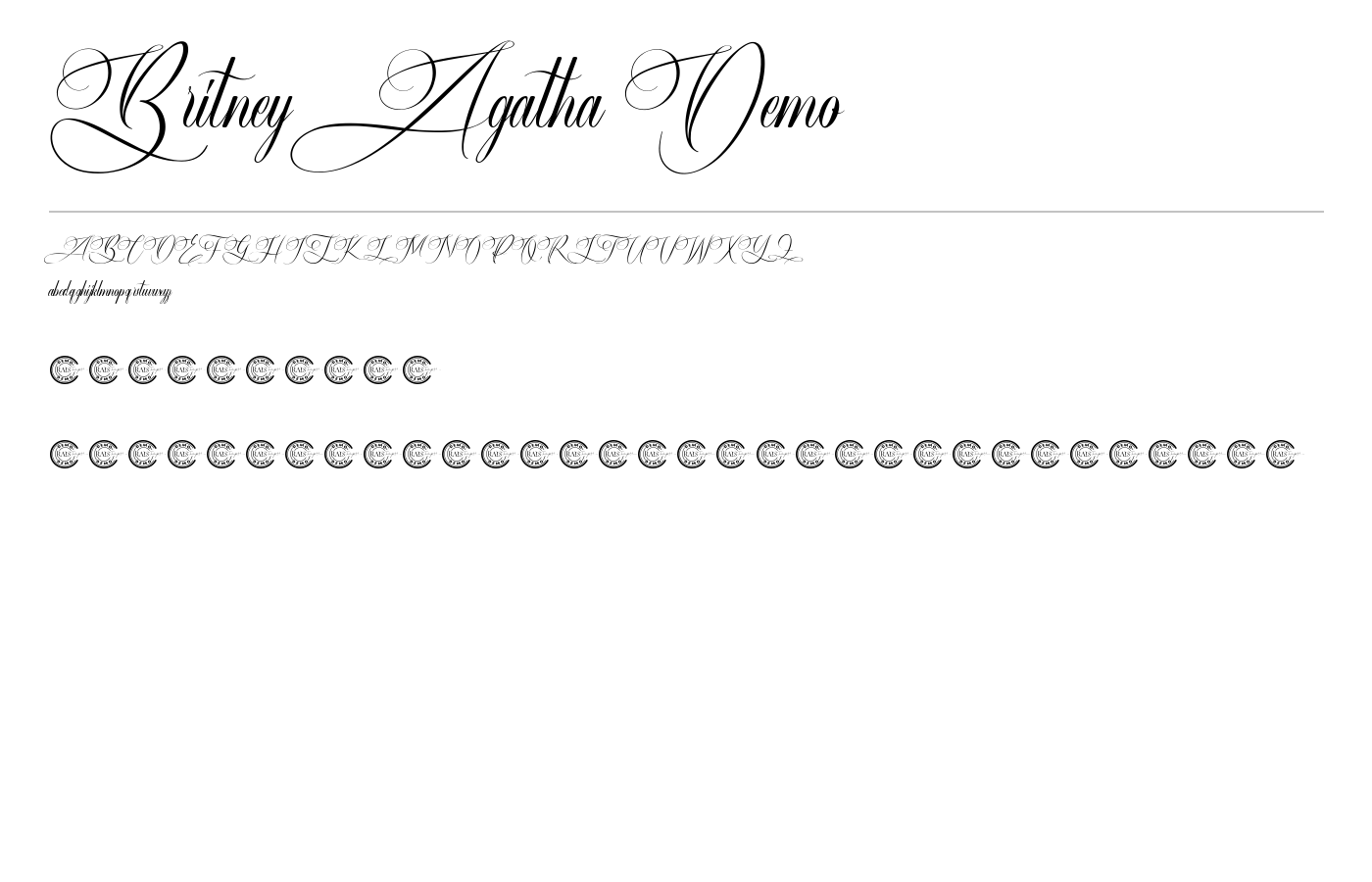
Britney Agatha Demo is an elegant script font characterized by its delicate, flowing strokes and high contrast between thick and thin lines. Its ornate, calligraphic style exudes a sophisticated and romantic personality, making it ideal for luxury branding, wedding invitations, and upscale editorial designs. This font shines in large sizes where its intricate details and graceful flourishes can be fully appreciated.
Britney Agatha Demo Font
About Britney Agatha Demo Font
| Font family | Britney Agatha Demo Font |